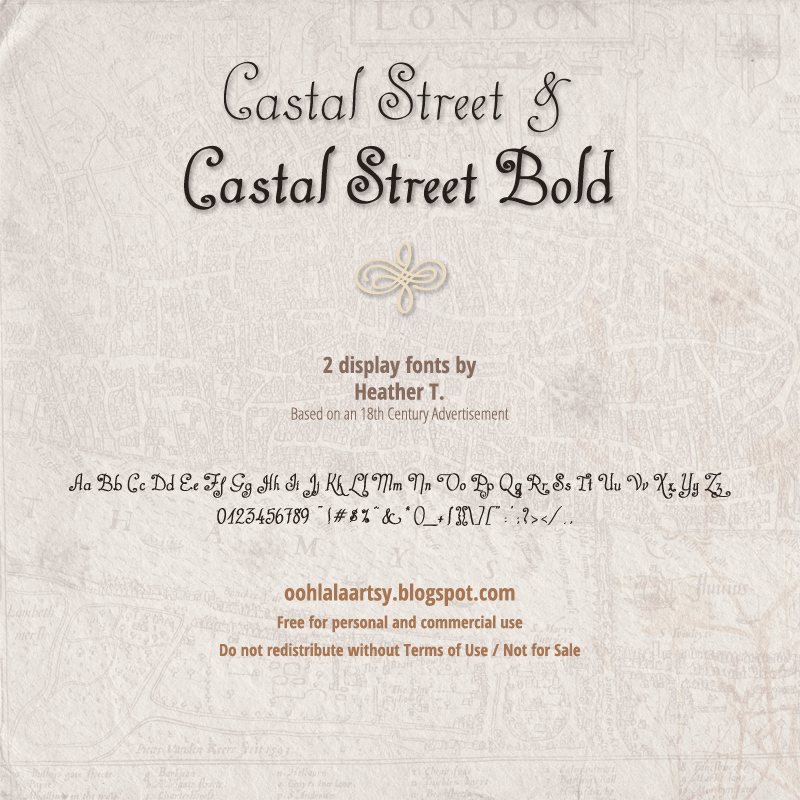
Castal Street is a free curly display font with the sweeping elegance of formal pen lettering. Tall, narrow forms rise into long loops, and fine strokes curl back through the capitals in repeated spiral details. The result is ornate yet airy, with dramatic flourishes extending well beyond the basic letter shapes.
Wedding invitations are its clearest setting, especially when the lettering needs a ceremonial, old-world accent. It also suits boutique branding, fashion packaging, and theatrical posters. Designers working for bridal, luxury, or period-themed markets will find its elaborate curves particularly appropriate.
The font is based on an illustrated 18th-century advertisement for musical instruments that could be located at “Castal Street.”
Castal Street